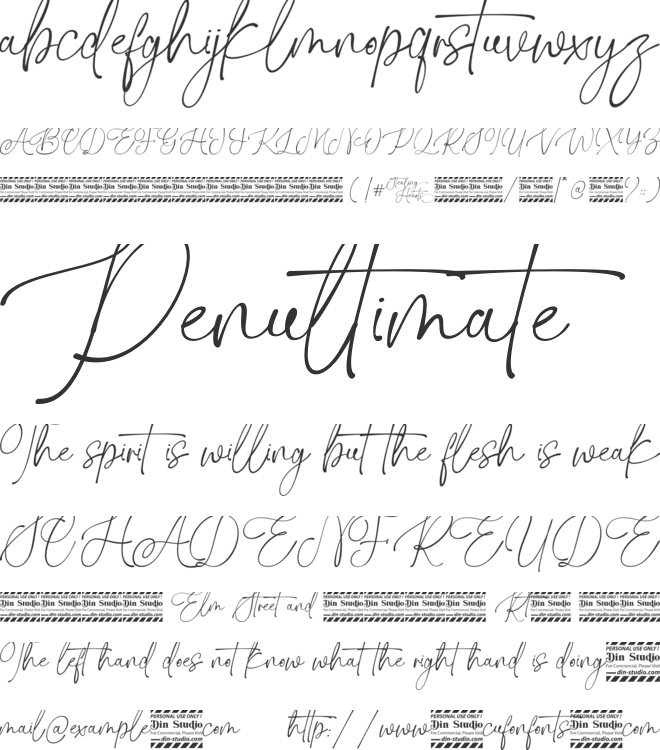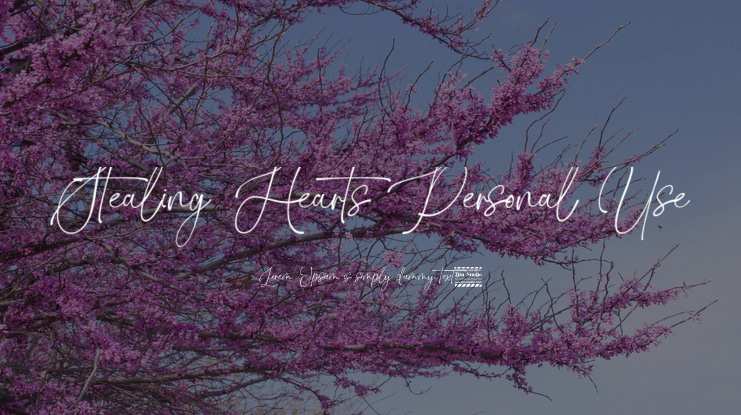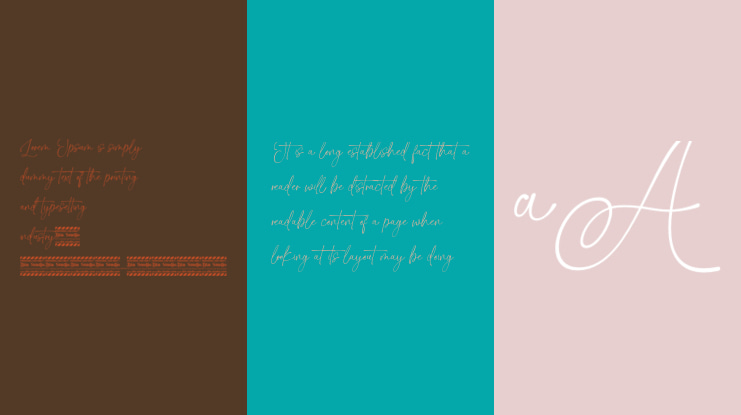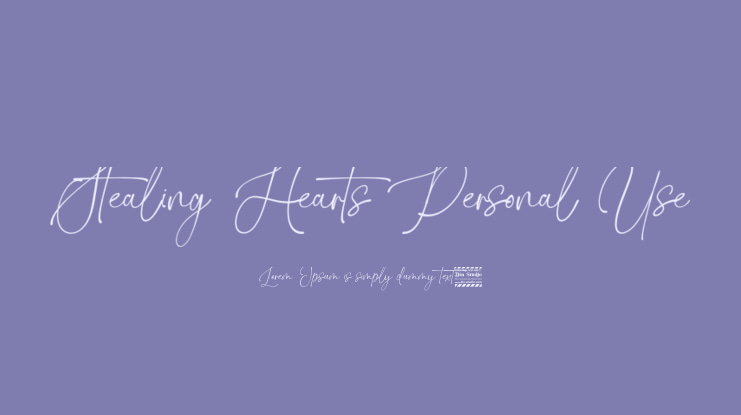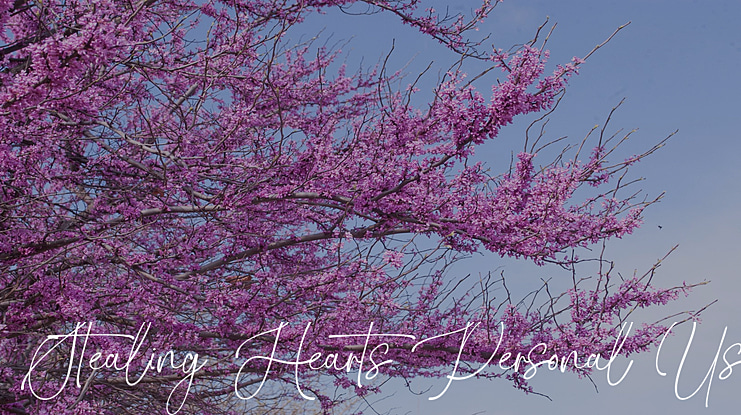
Stealing Hearts is a elegant script typeface. Designed primarily as a captivating handcrafted with style. Every swash, stroke, and curve was created to entice happiness and elegance.Stealing Hearts is a elegant script typeface. Designed primarily as a captivating handcrafted with style.